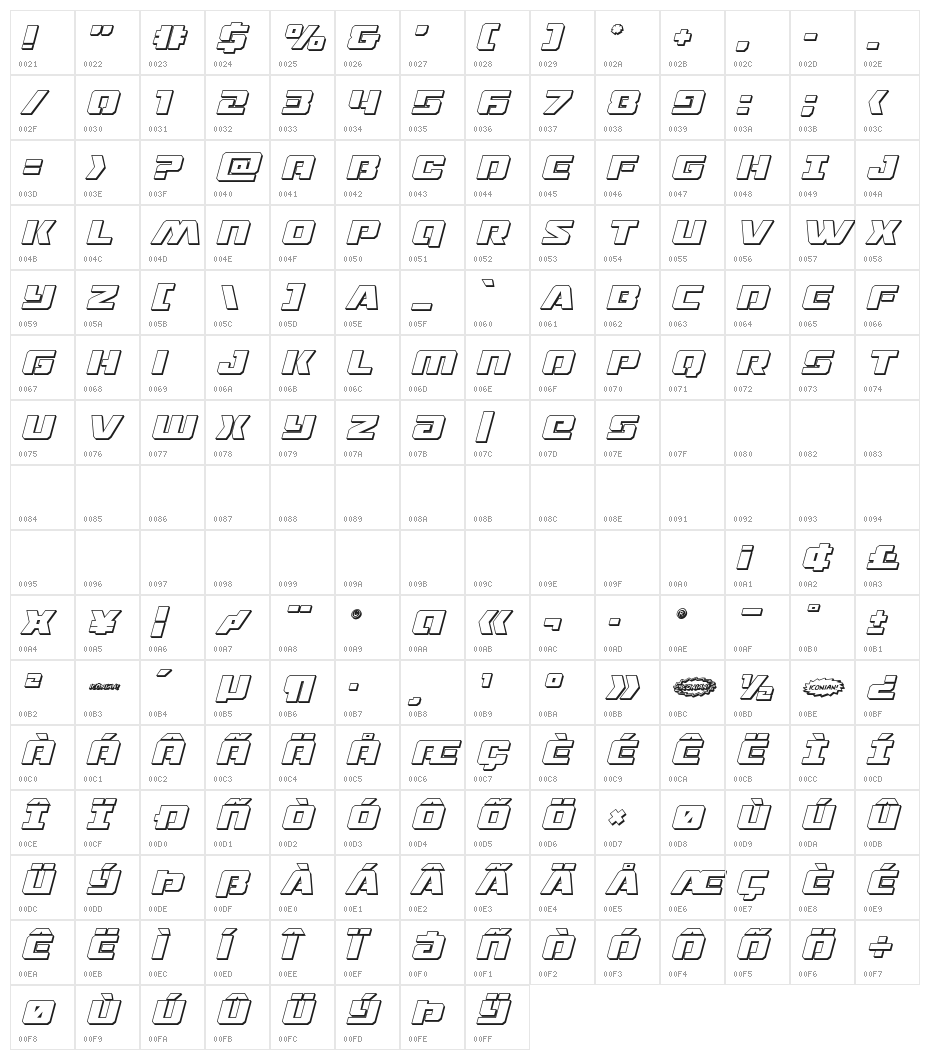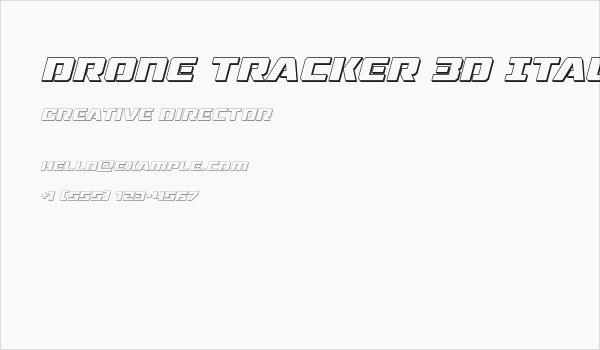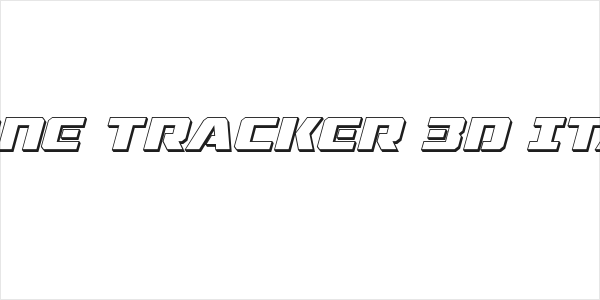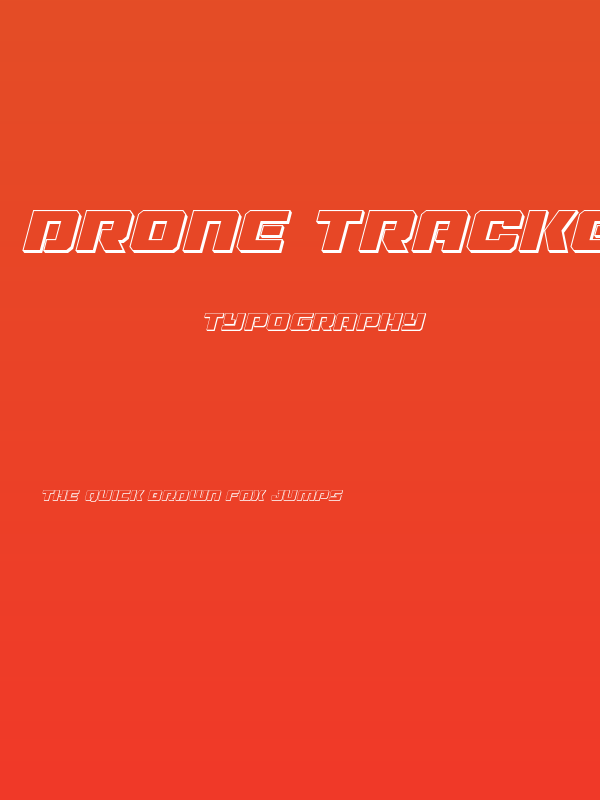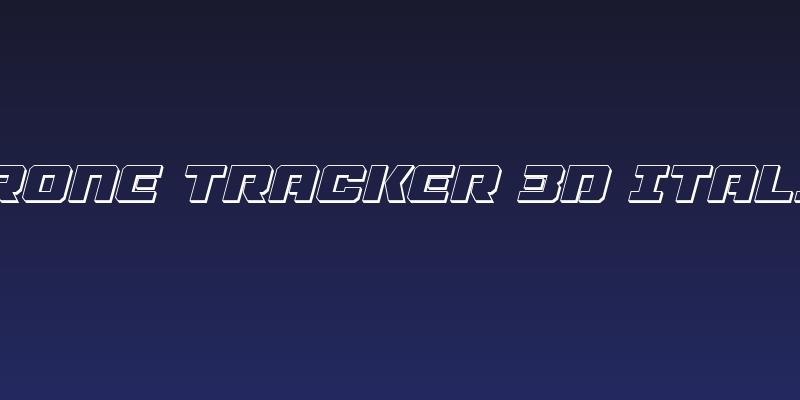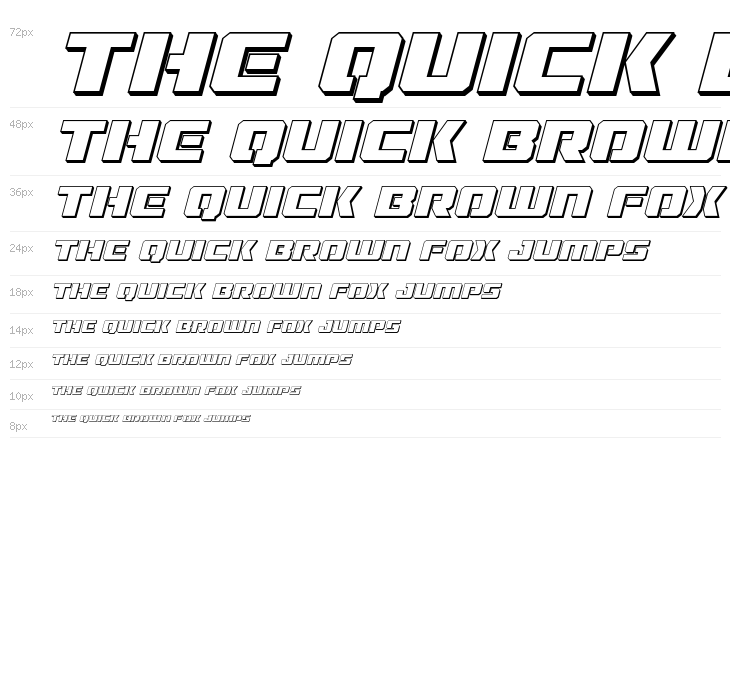
Drone Tracker 3D Italic Font
Drone Tracker 3D Italic Description
This font features a bold, three-dimensional design with an italicized slant, giving it a dynamic and futuristic appearance. The characters are outlined, creating a hollow effect that enhances the 3D illusion. The geometric shapes and angular lines contribute to a modern and tech-inspired aesthetic. Each letter and number is distinct, with consistent spacing and alignment, making it suitable for attention-grabbing headlines or logos. The special characters maintain the same stylistic elements, ensuring uniformity across all glyphs.
| Proposed Projects | Ideal for technology branding, video game titles, sci-fi movie posters, and modern digital interfaces. |